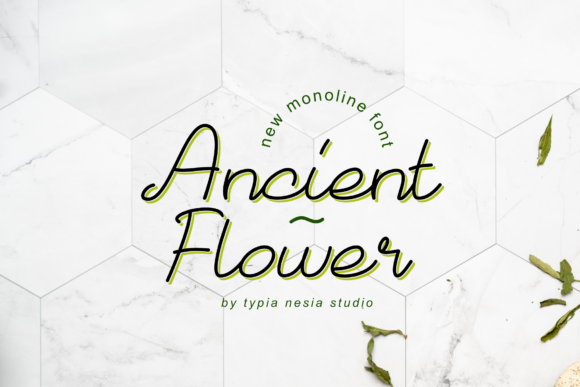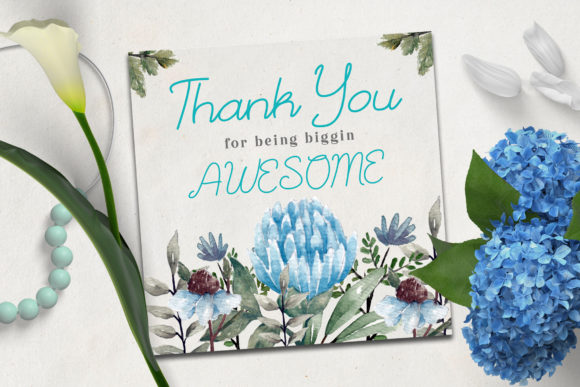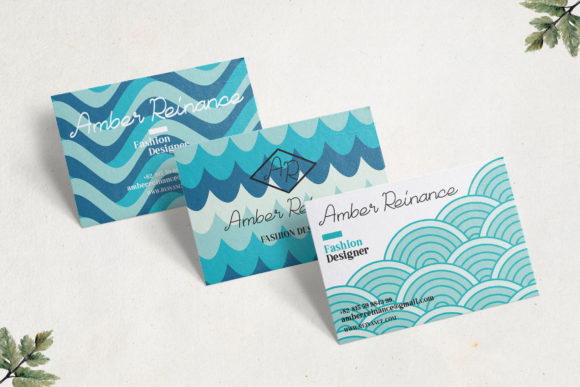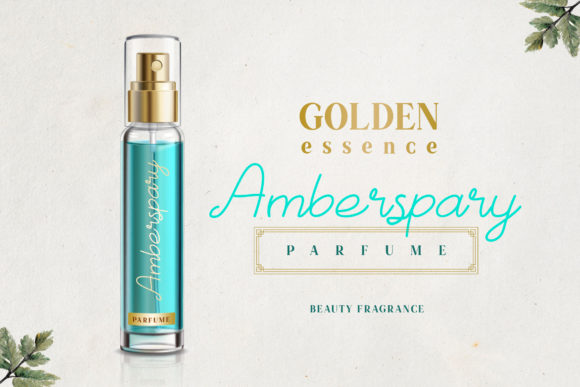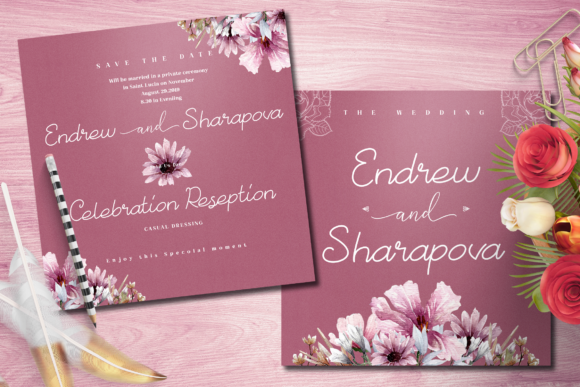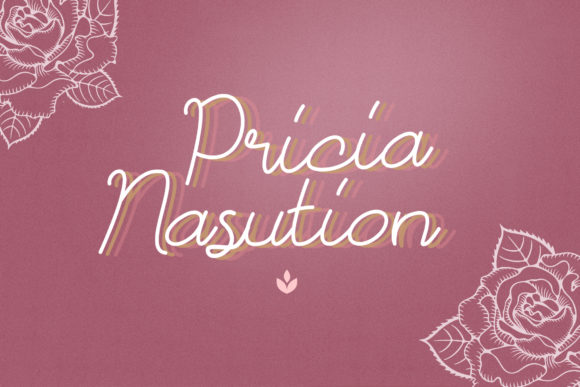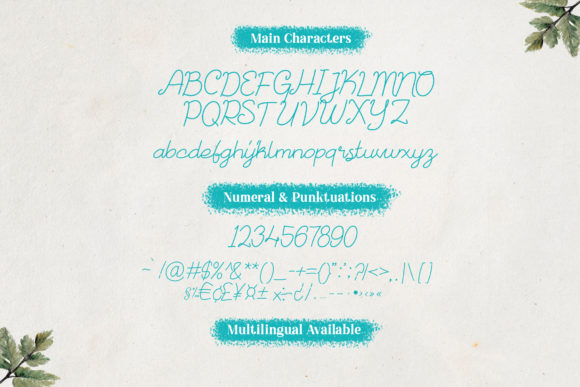
Ancient Flower Font
About Ancient Flower Font
Ancient Flower is a stunning and charming script font that’s perfect for turning any design project into an authentic piece of art.